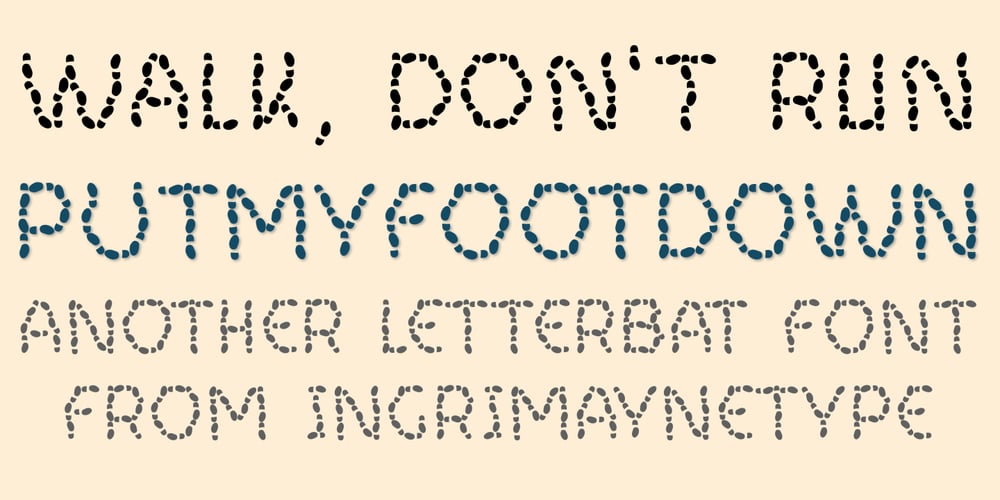
Put My Foot Down
Put My Foot Down font
Put My Foot Down Font Family was designed by Robert Schenk and published by Ingrimayne Type. Put My Foot Down contains 1 styles and family package options. If you grew up in the north, you may have stomped out letters in the fresh snow during the winter. Memories of such winter fun helped inspire this typeface. If one can do the typeface with shoes or boots, one can also do it with bare feet and hands. Non-human variants are possible, such as bird tracks.